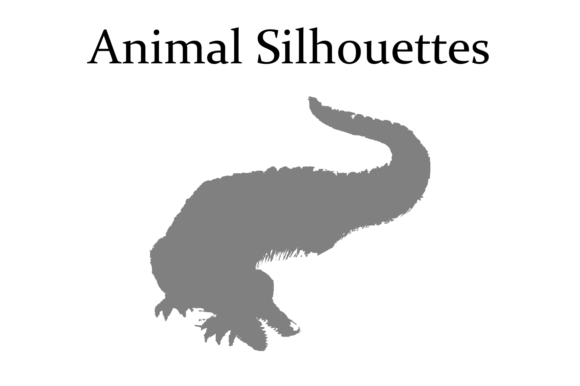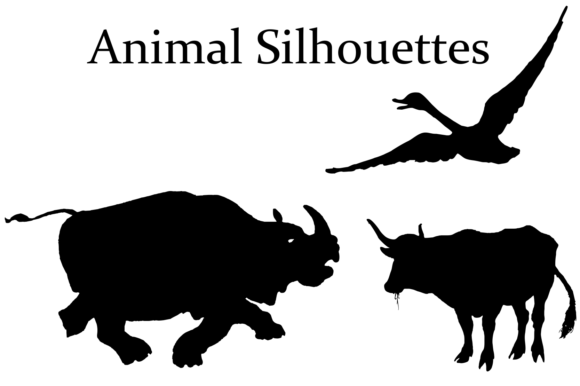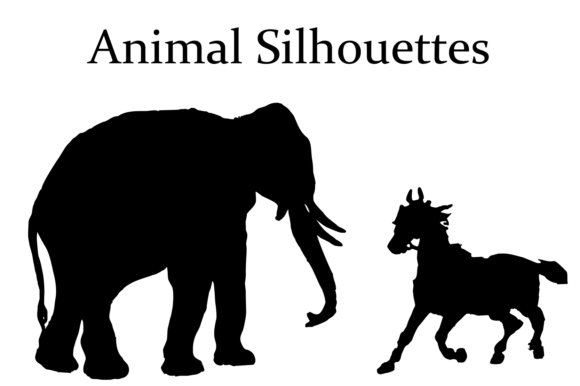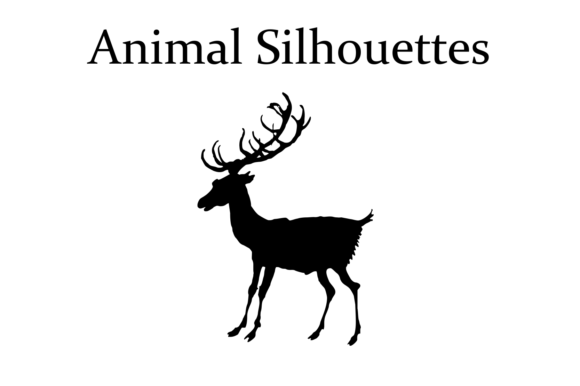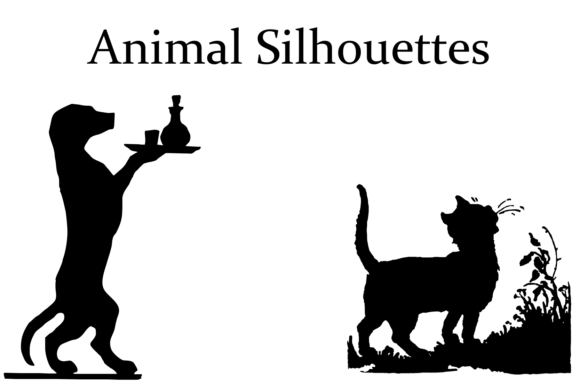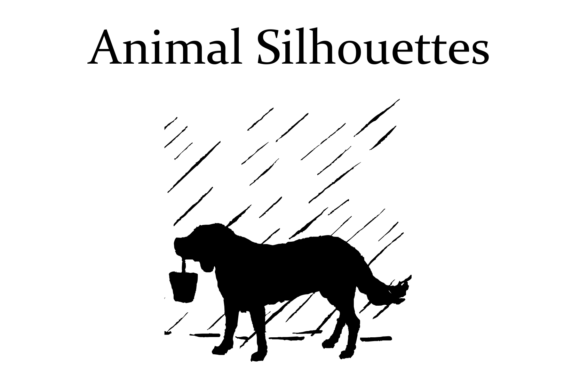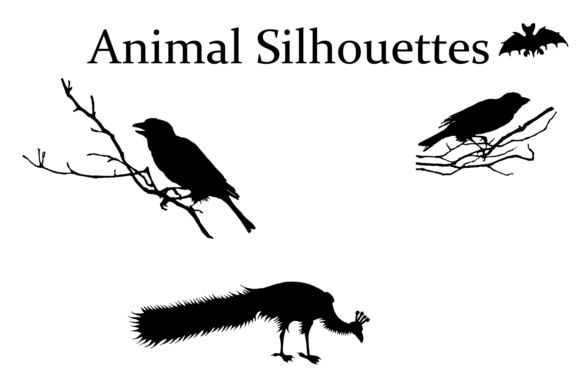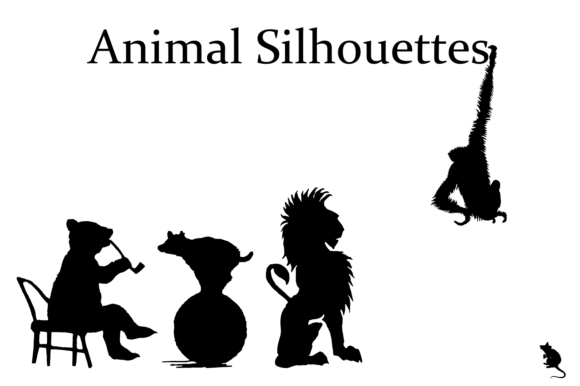
Animal Silhouettes
Font Family by Intellecta Design
The Animal Silhouettes  is a beautiful family of two dingbat fonts with lots of retro animal silhouettes.